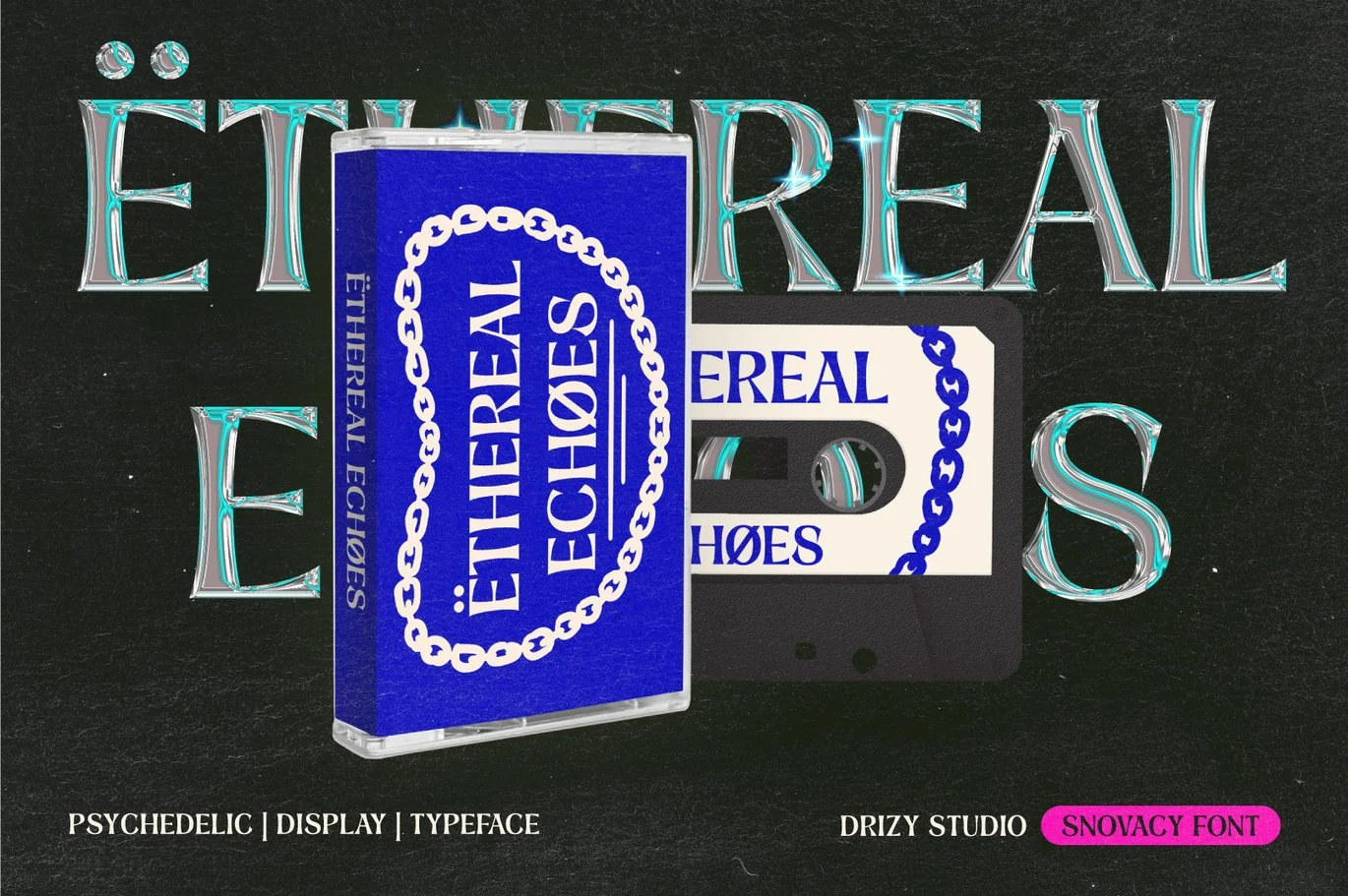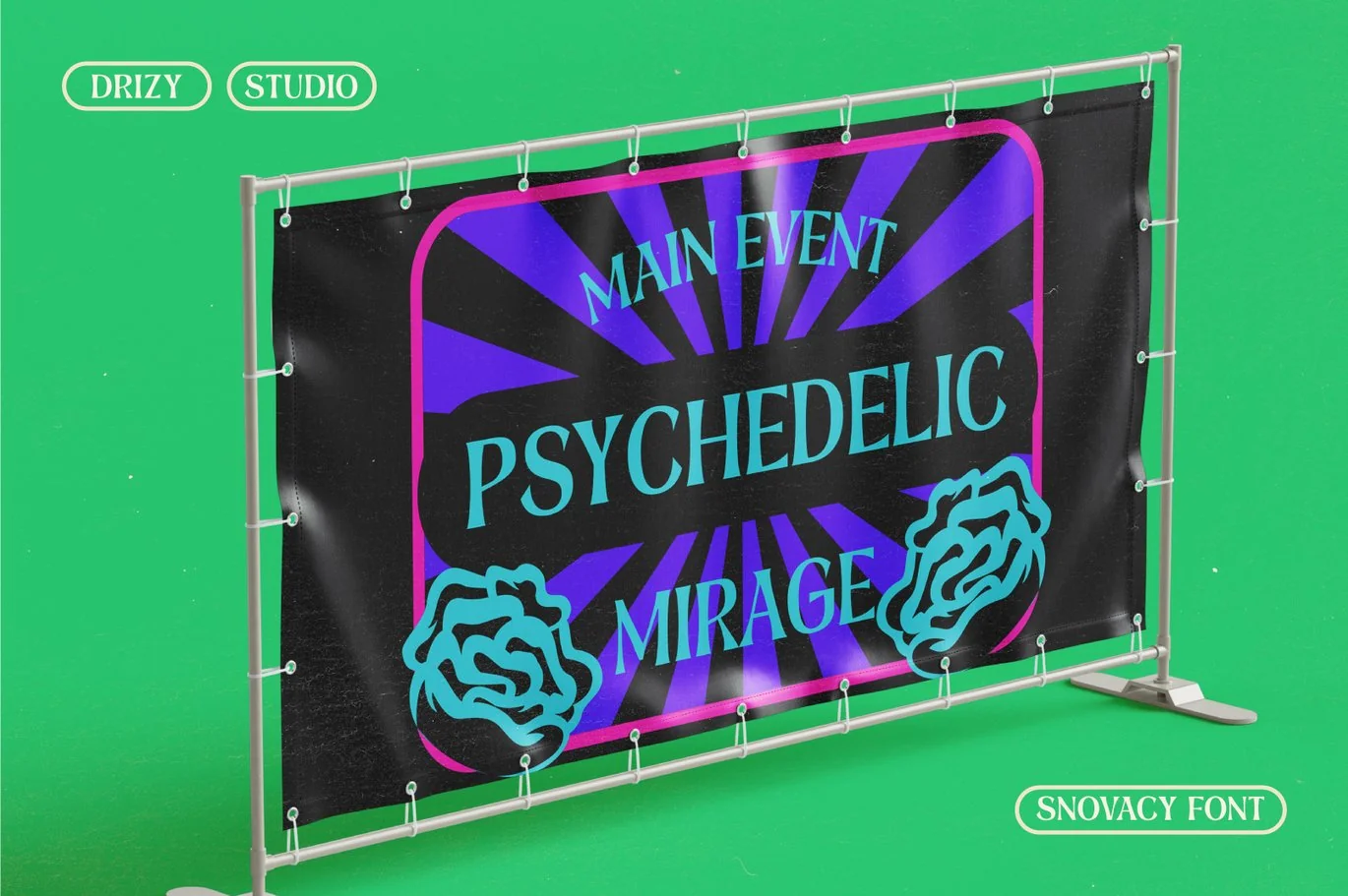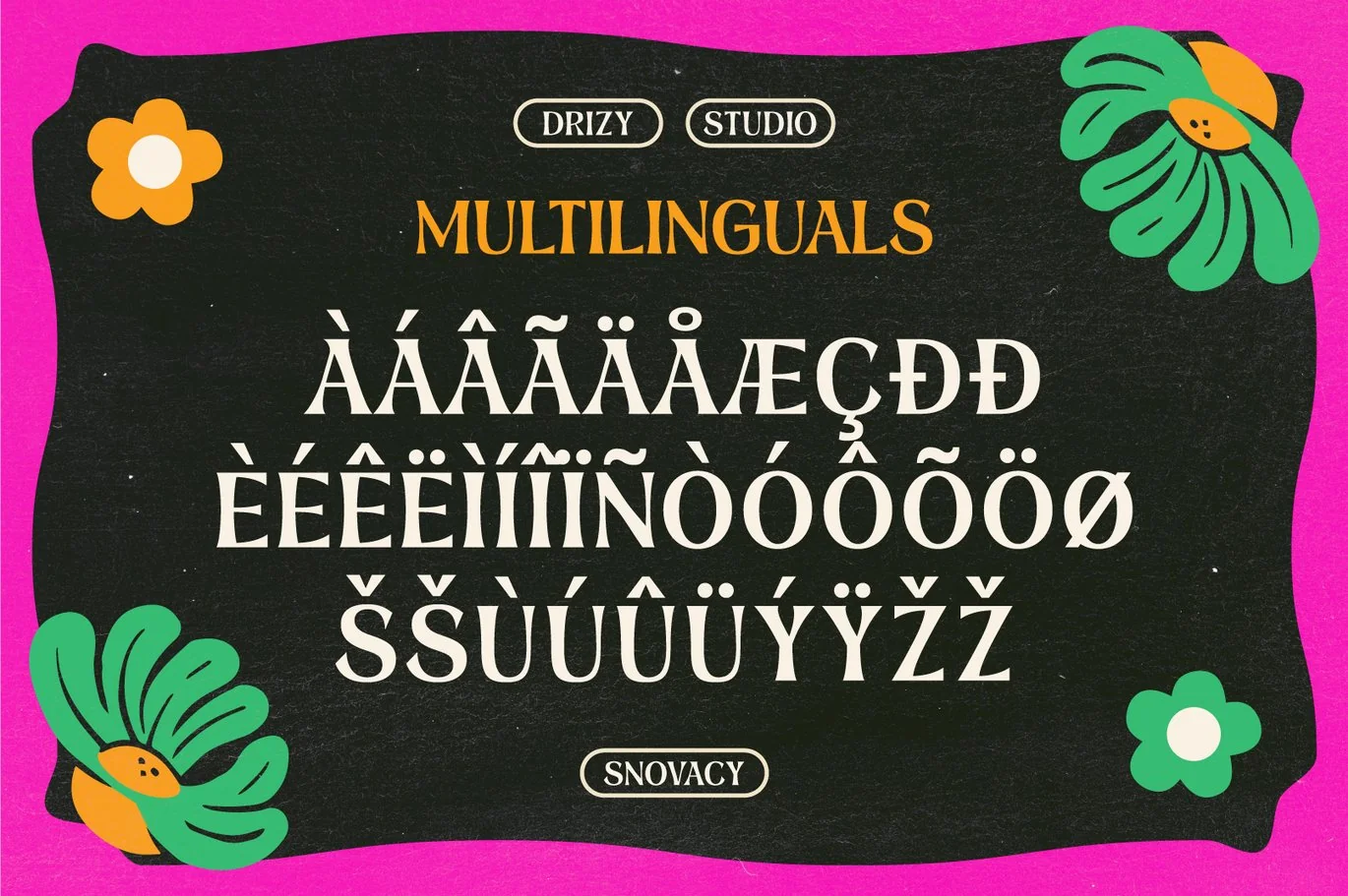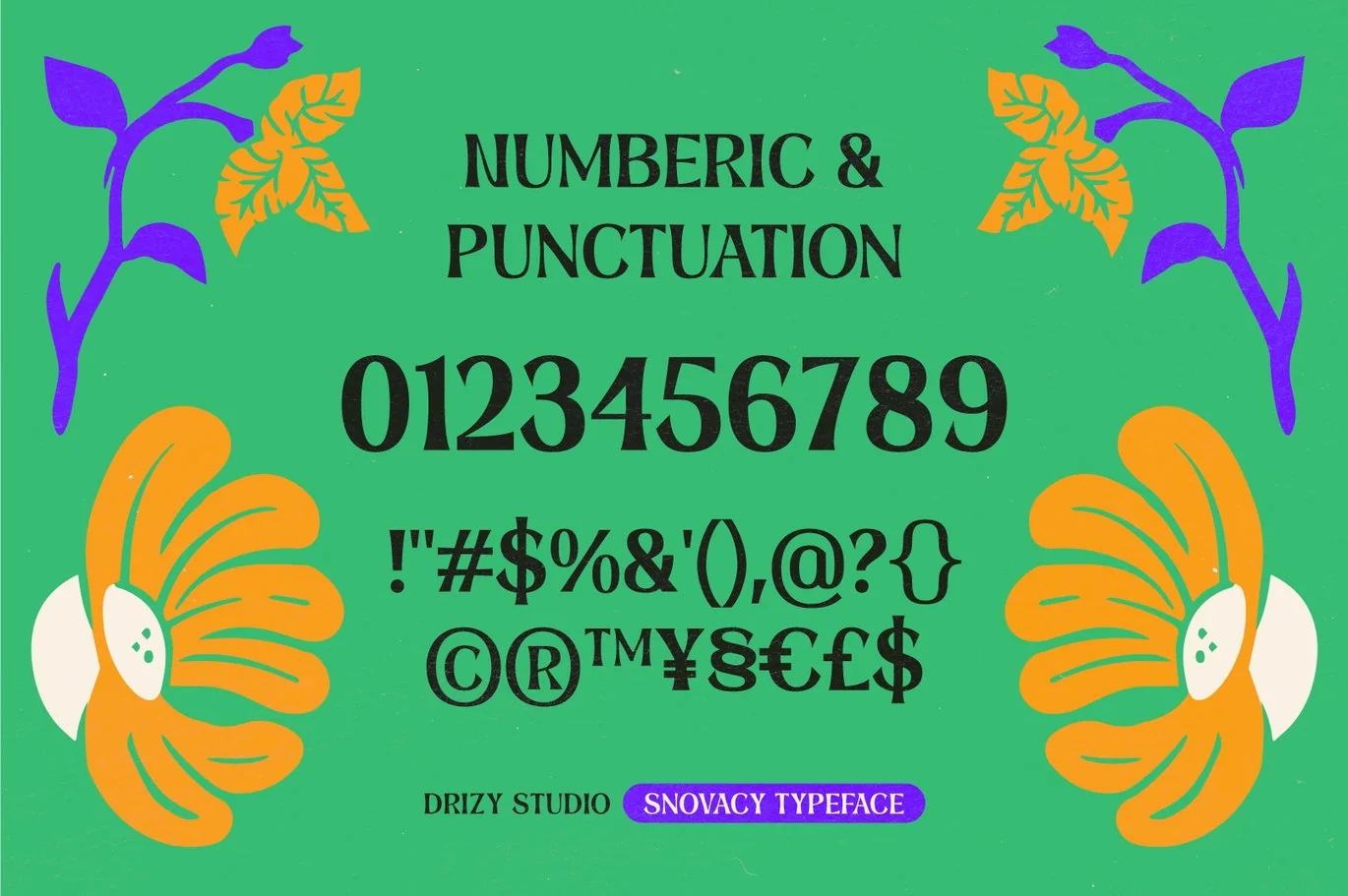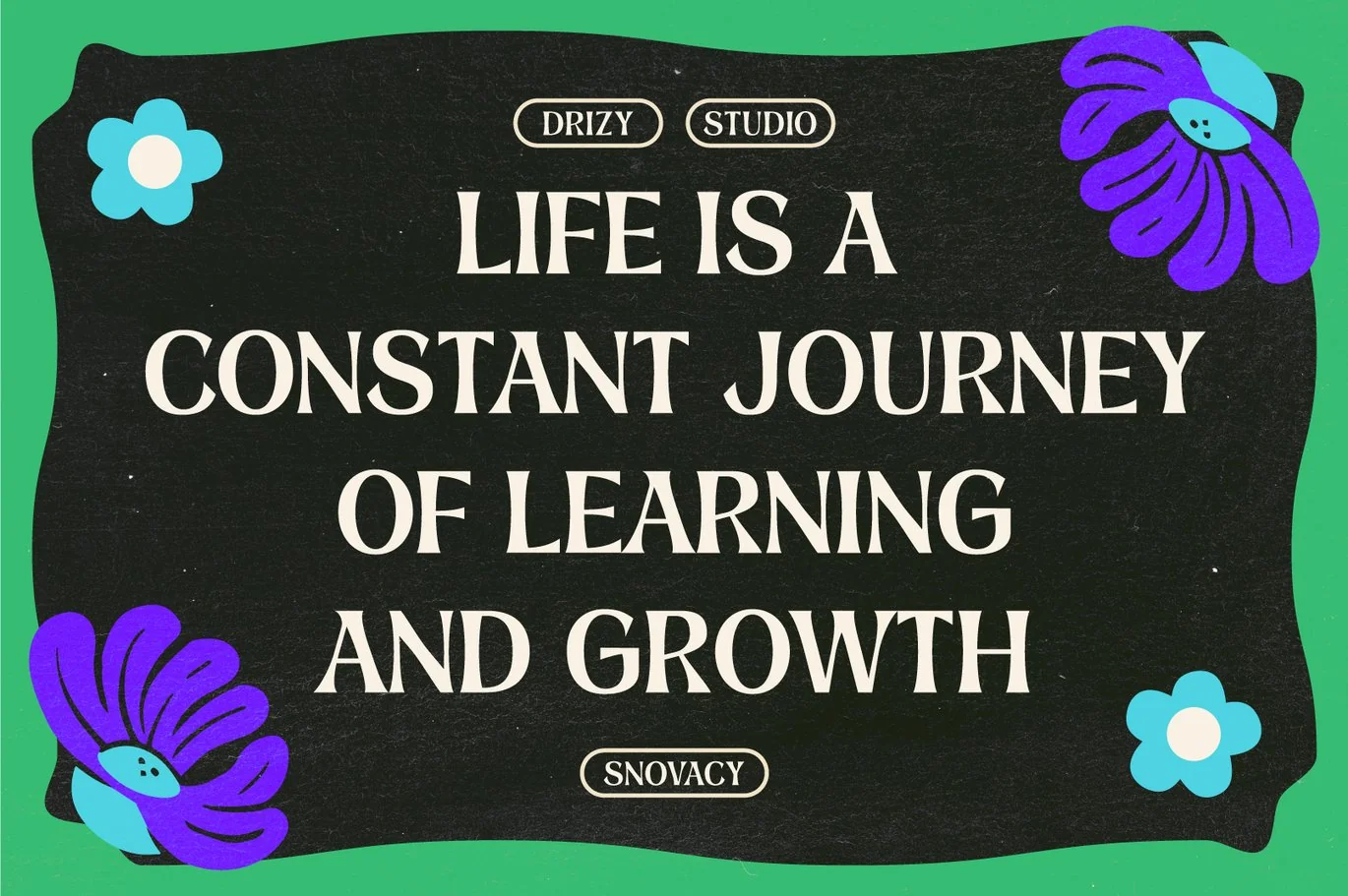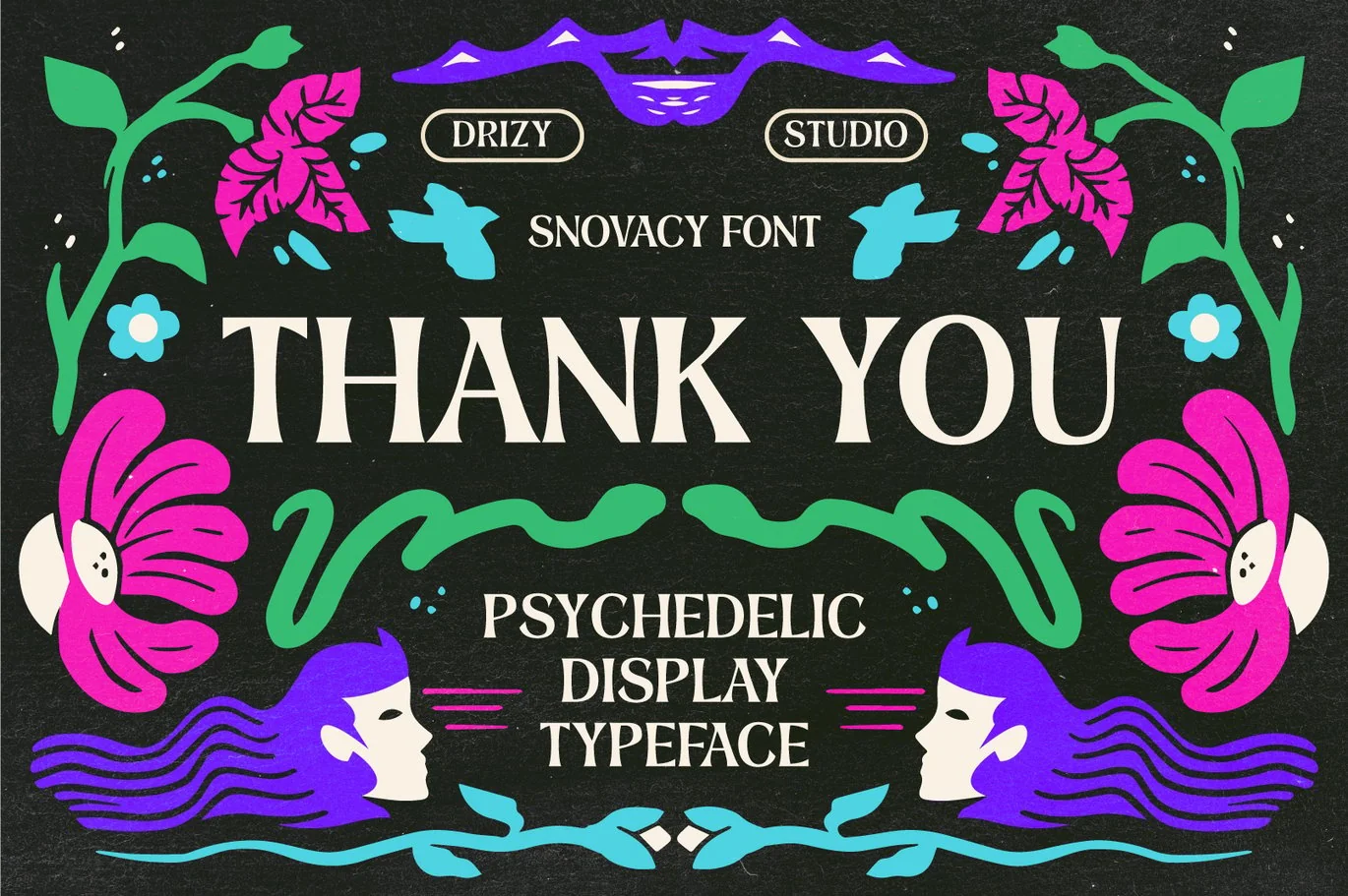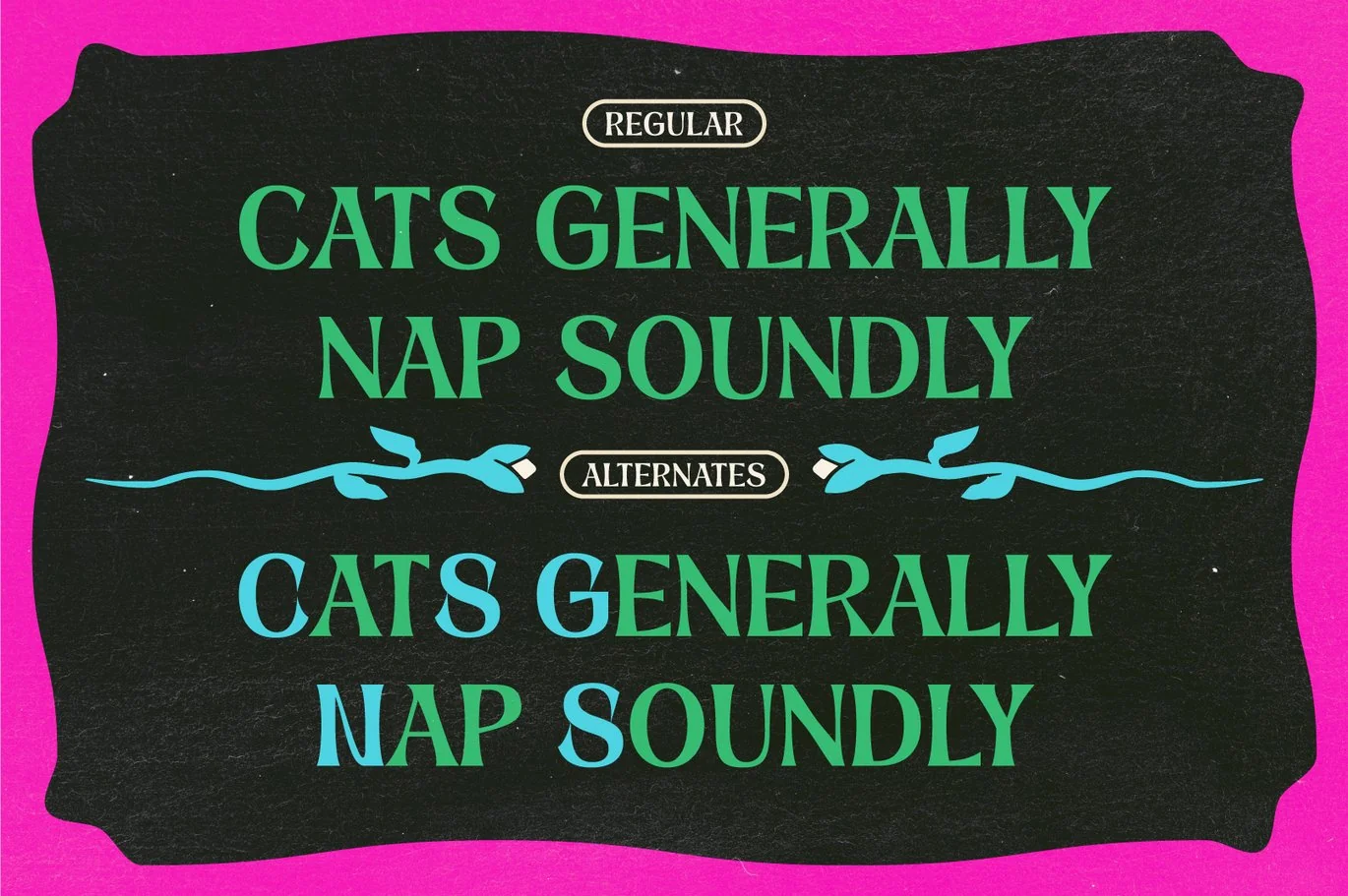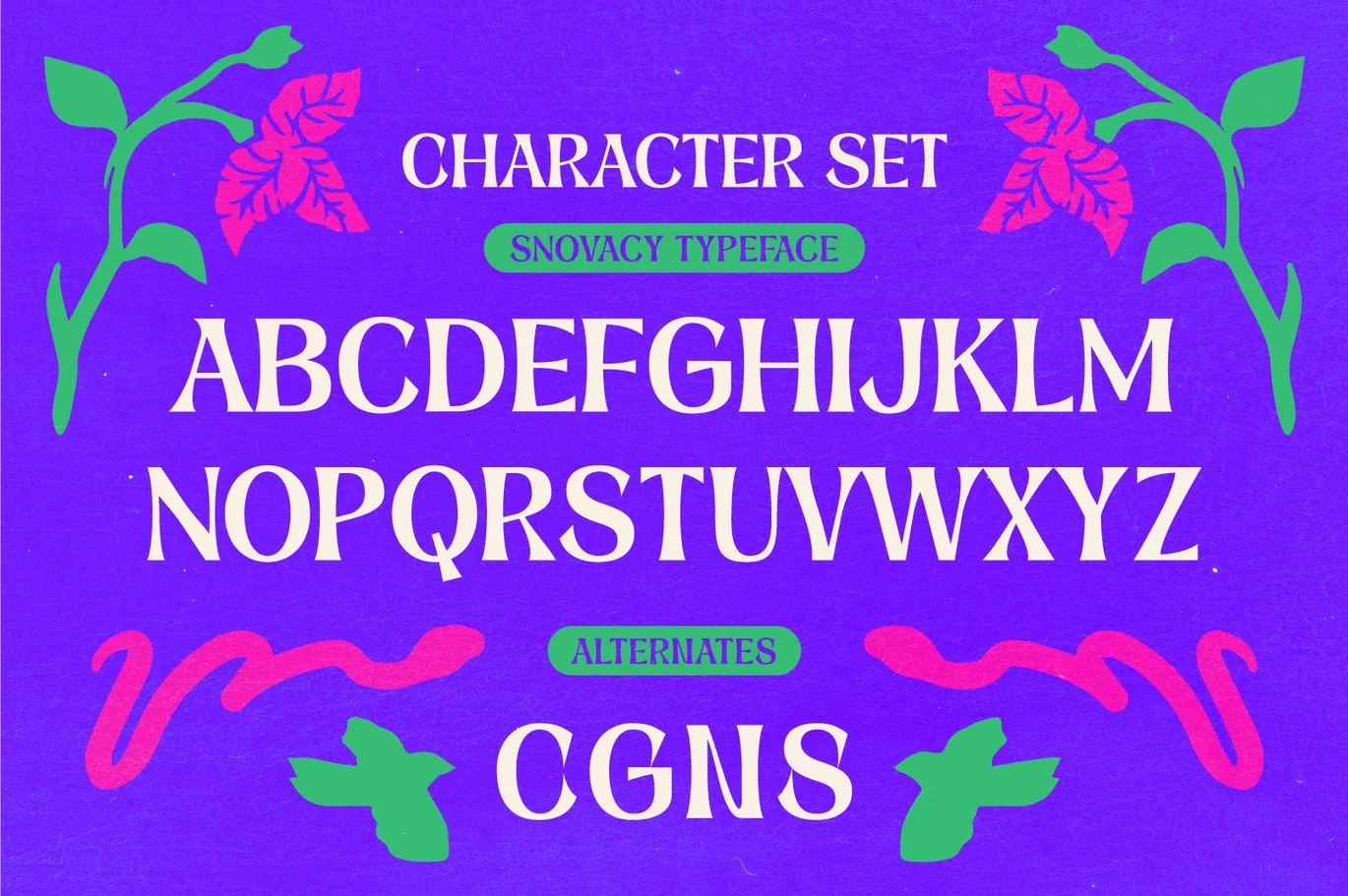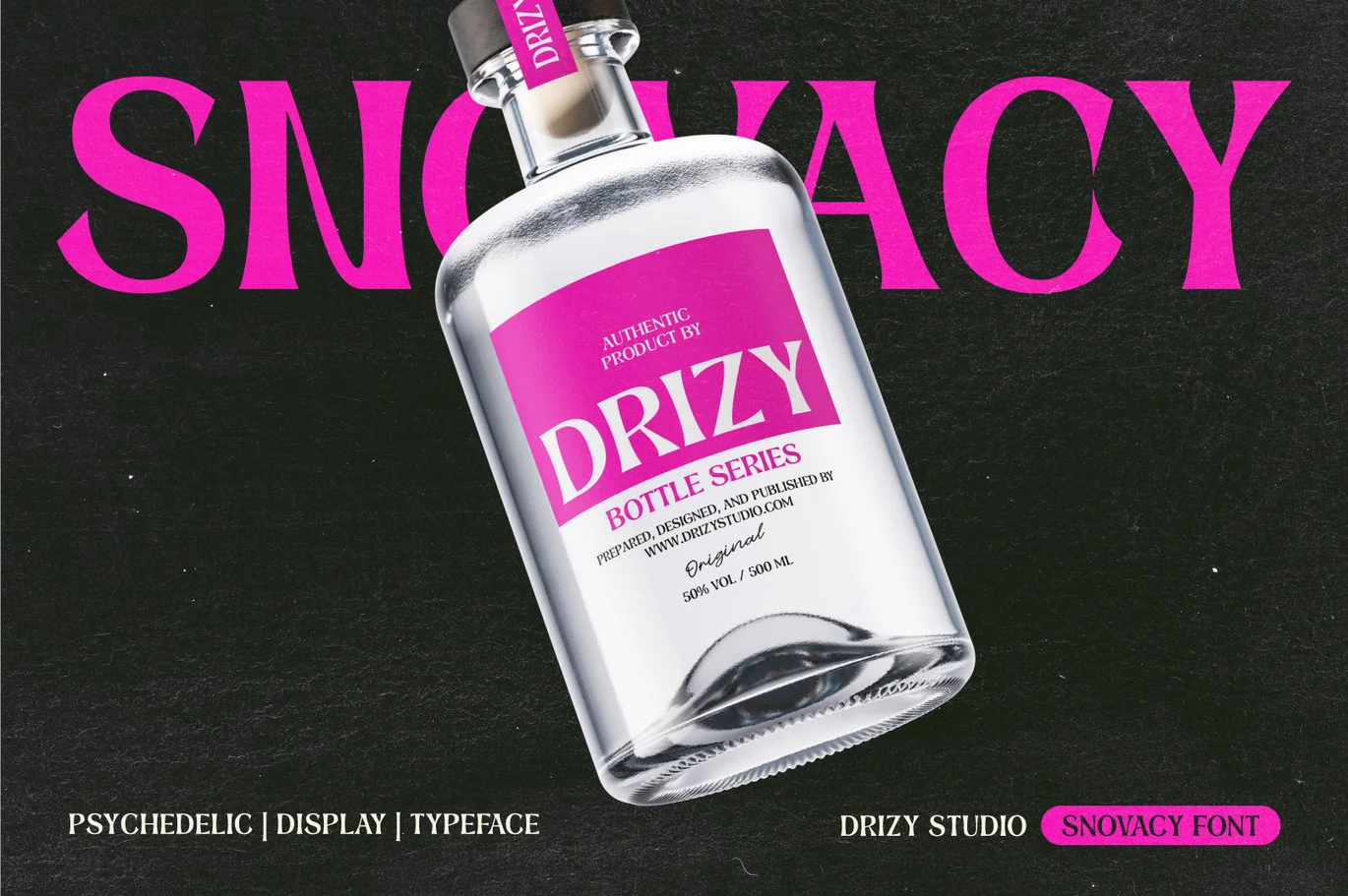
Snovacy – Psychedelic Display Font
Introducing Snovacy, a mesmerizing and vibrant Aesthetic Floral Psychedelic display font that brings a burst of creativity to your projects. With its unique blend of whimsical curves, bold lines, and intricate details, Snovacy captures the essence of the psychedelic era, adding a touch of retro charm to your designs.
Character Set
Alternates
Elevate and explore the design possibilities with this Aesthetic Psychedelic Font!